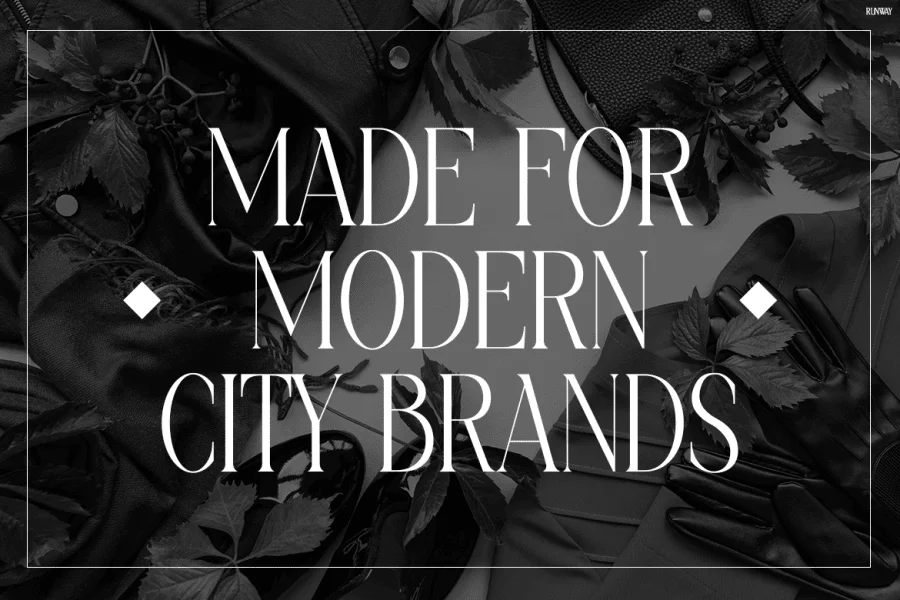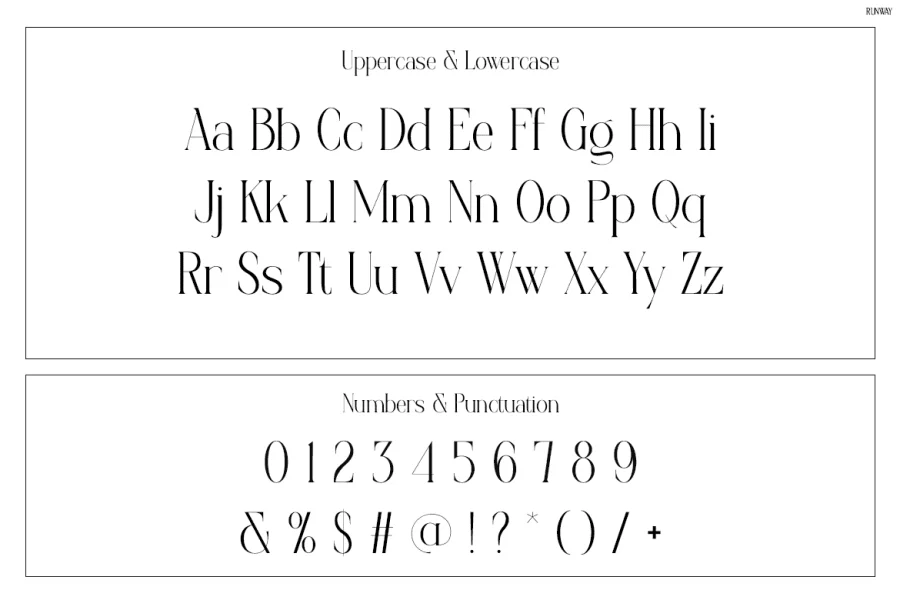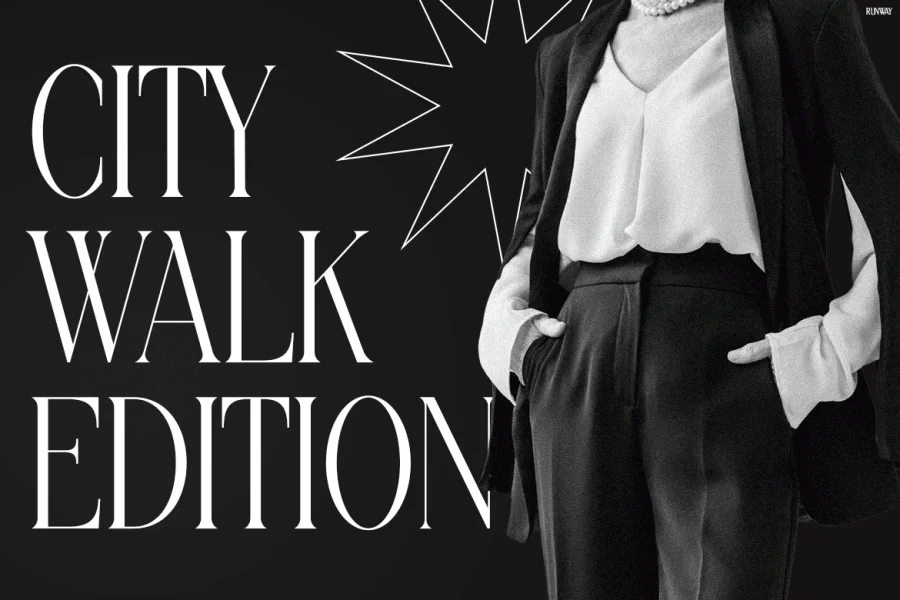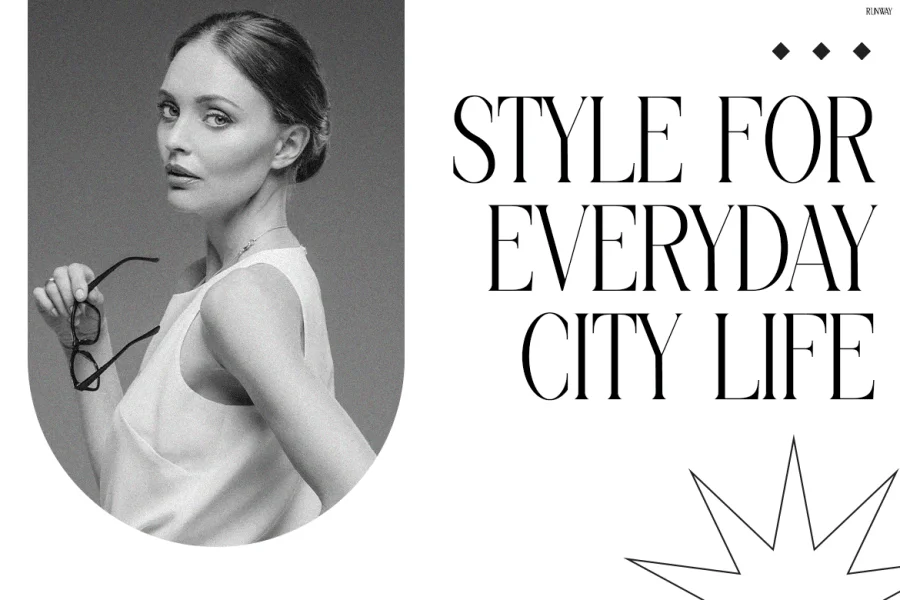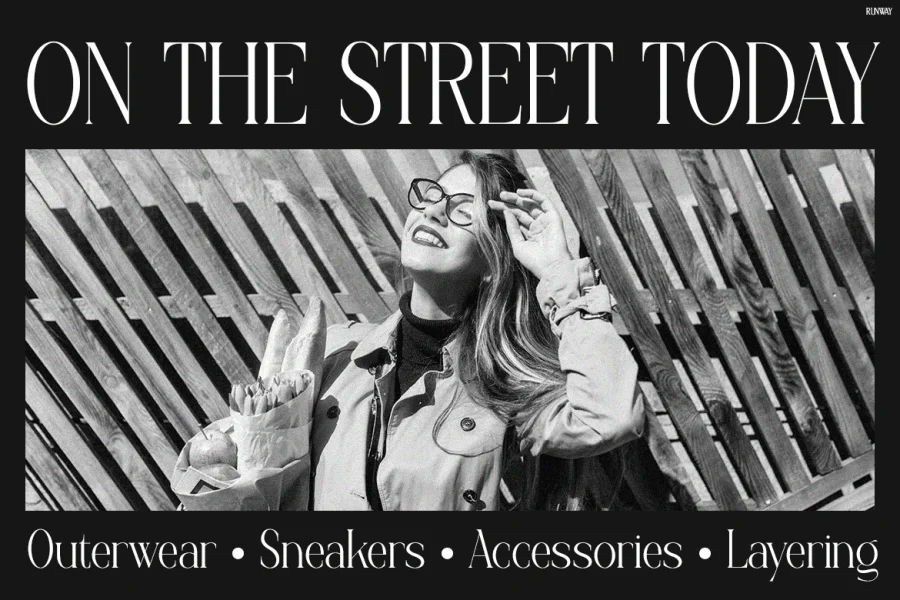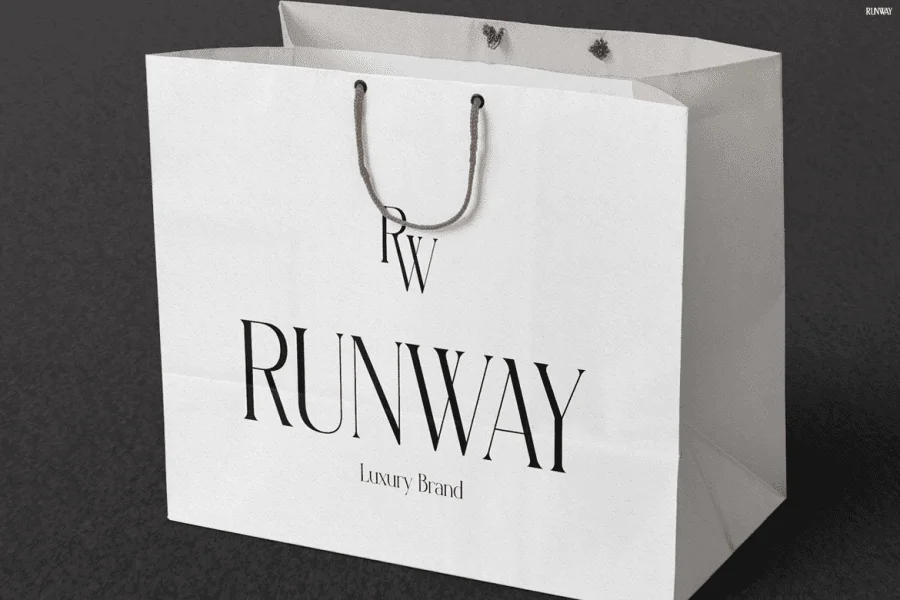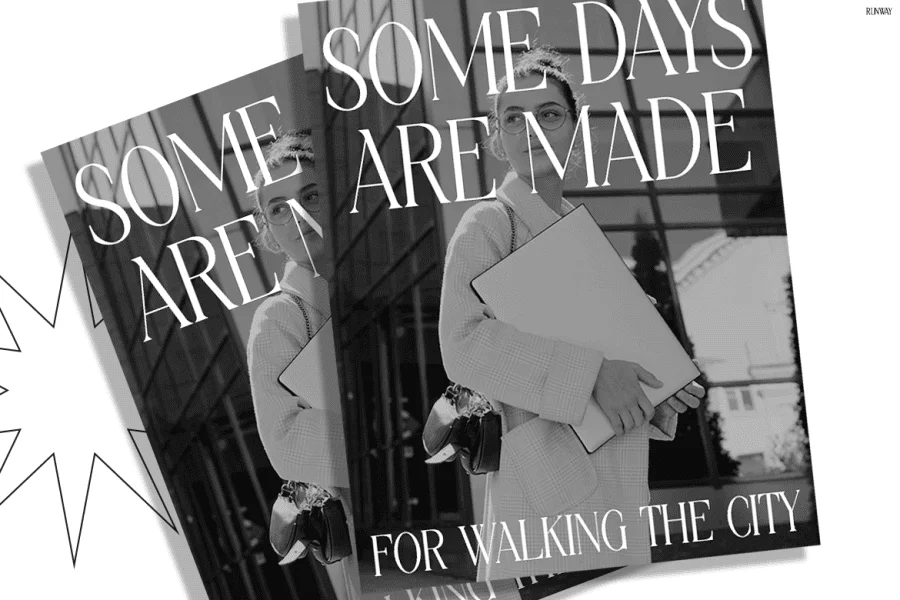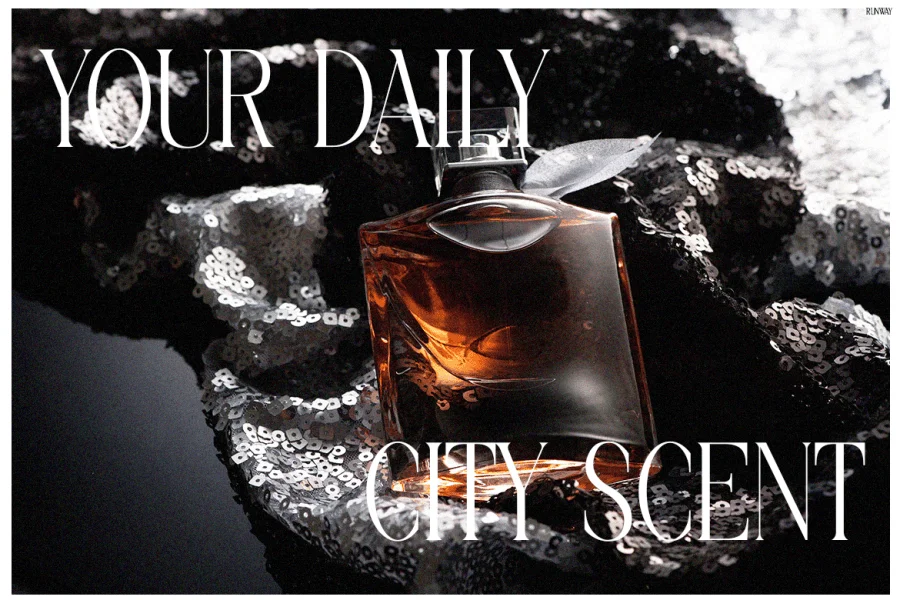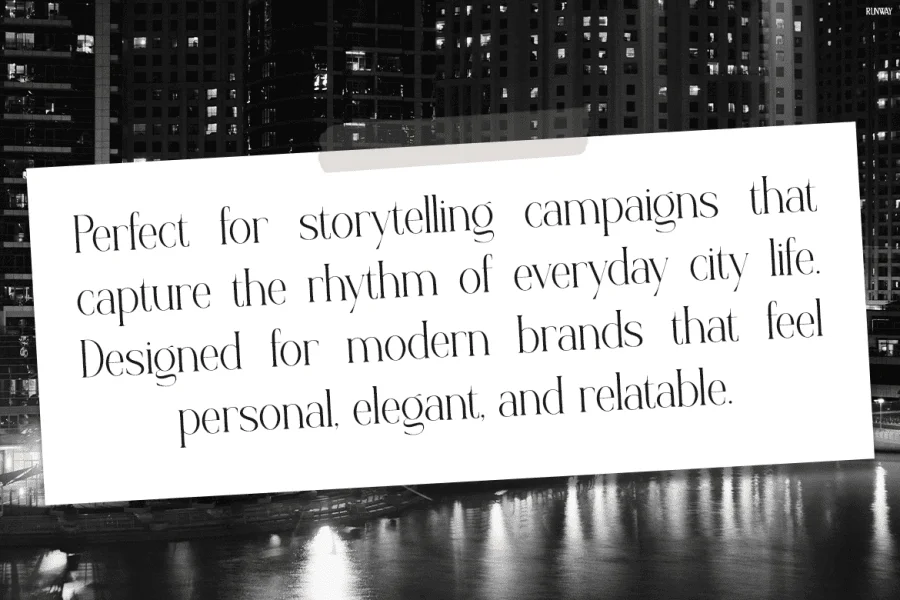
Runway is a high-contrast display typeface characterized by its condensed proportions, sharp architectural elegance, and subtle wedge-serif details. The letterforms exhibit an extreme stroke ratio, transitioning seamlessly from robust vertical stems to ultra-thin horizontal crossbars and diagonals. This dramatic variation in weight is anchored by sharp, triangular wedge serifs that terminate the stems, creating a striking vertical rhythm that blends classic editorial structure with a contemporary, minimalist aesthetic.
With its refined silhouette and haute couture sensibility, this typeface is exceptionally suited for high-end editorial mastheads, luxury fashion branding, and premium packaging designs. Its narrow width, sharp serifs, and high-contrast styling make it a compelling choice for large-scale display applications, such as boutique signage, promotional lookbooks, and sophisticated digital interfaces where a sense of modern luxury and curated style is paramount.